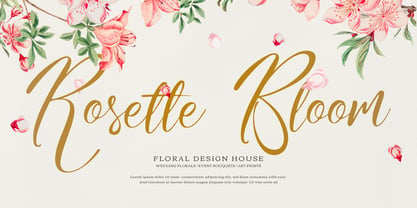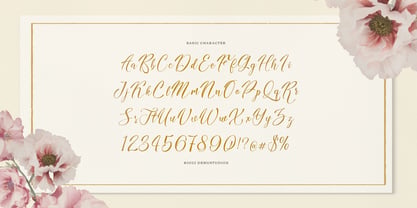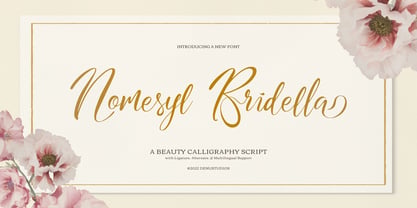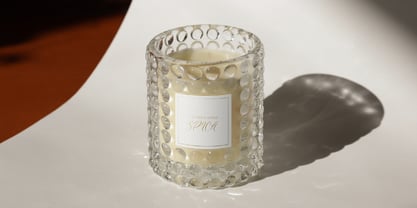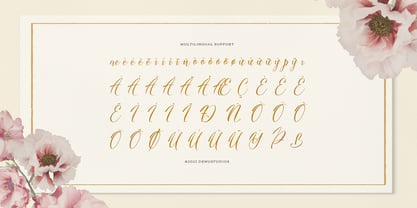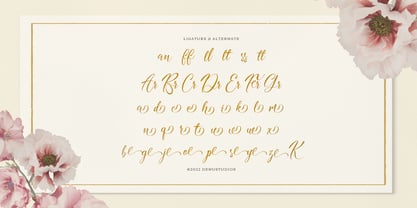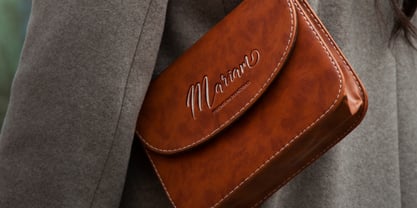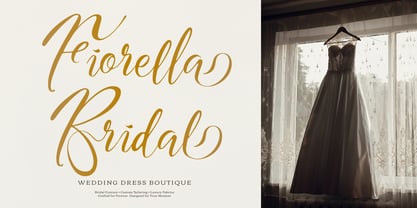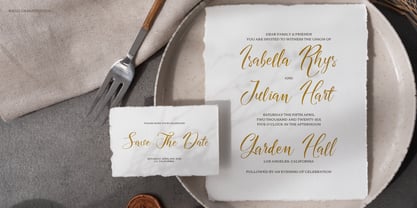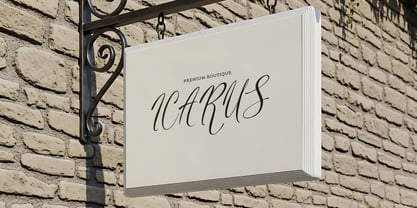
Nomesyl Bridella
The Nomesyl Bridella Font Family was designed by Dede Nugraha and published by Denustudio. Nomesyl Bridella contains 2 styles and family package options. More about this family
Nomesyl Bridella | Beauty Calligraphy Script, from Denustudios, suitable for any projects such as: logos, branding projects, homeware designs, product packaging, mugs, quotes, posters, shopping bags, t-shirts, book covers, name card, invitation cards, greeting cards, label, photography, watermark, special events, and all your other lovely projects that need Script a taste.